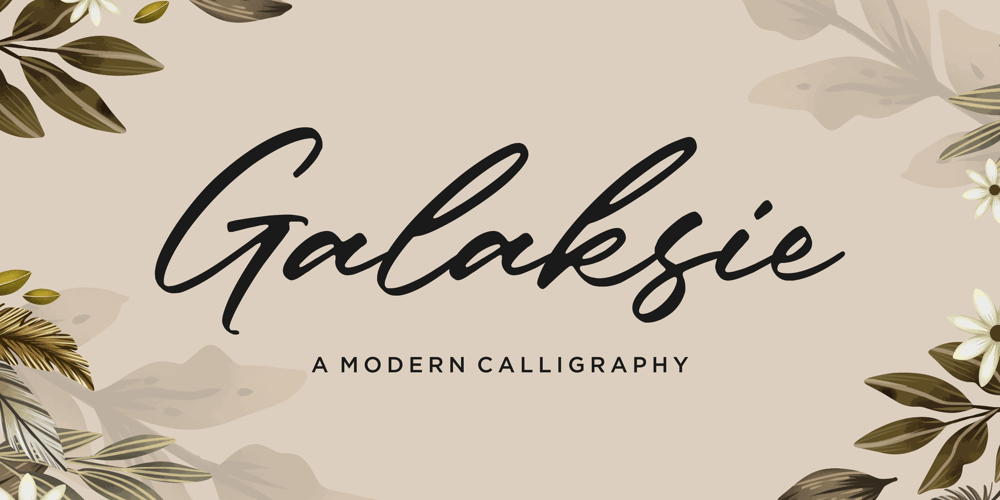
Galaksie Font Family was designed by Restu Angga and published by Balpirick. Galaksie contains 1 styles and family package options. Galaksie is a Modern Calligraphy Font.Galaksie is a stylish script font with a contemporary atmosphere and impeccable form, inspired by timeless classic calligraphy. Not too thin and not too thick, balanced and varied, this font was designed to enhance the beauty of your projects.Galaksie also multilingual support.Enjoy the font, feel free to comment or feedback, send me PM or email.Thank you!